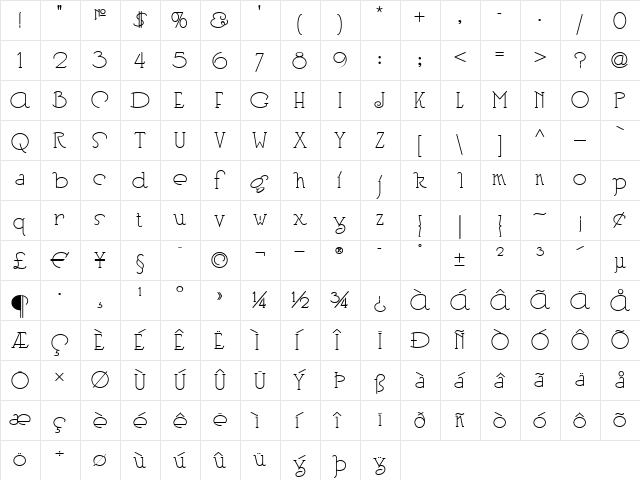
Heberling Casual NF Regular
| Designer | Nick Curtis |
Design Context for Heberling Casual NF Typeface
Heberling Casual NF offers clean, dependable letterforms without strong stylistic allegiance, making it a practical choice for designers who need flexibility.